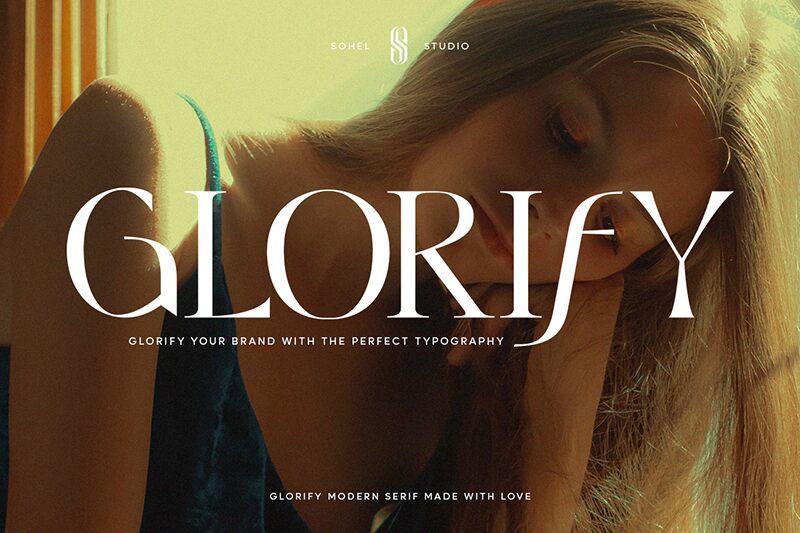
Glorify SH font is a modern serif font designed by Sohel Studio. The elegance of the characters goes with their sophisticated look resulting in a truly versatile typestyle choice. The professional appearance of the font is driven by high contrast between its thin and thick strokes which leaves users with bold, modern-looking style options.
**Glorify SH Features**:
- 4 weights of the font (Regular, Italic, Outline, Semi Bold)
- Uppercase and lowercase letters
- Alternates
- Numerals and punctuation
- Accented characters
- Multilingual support